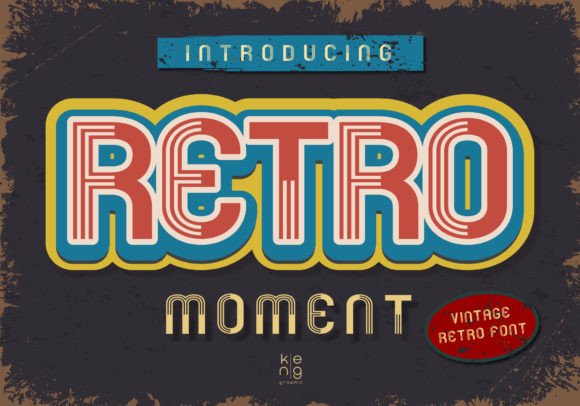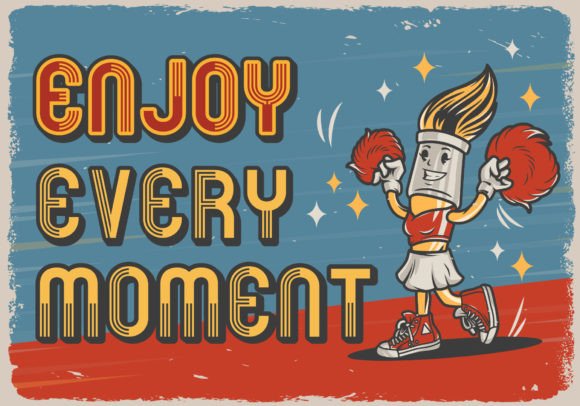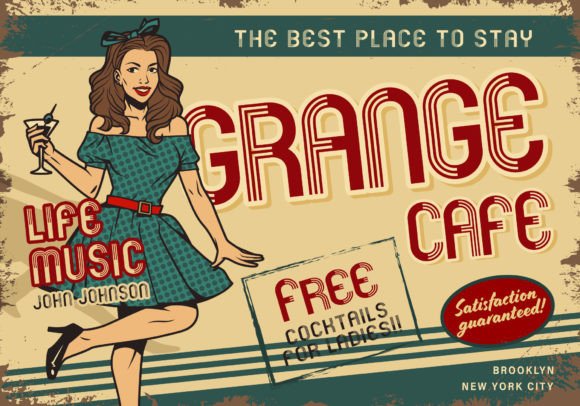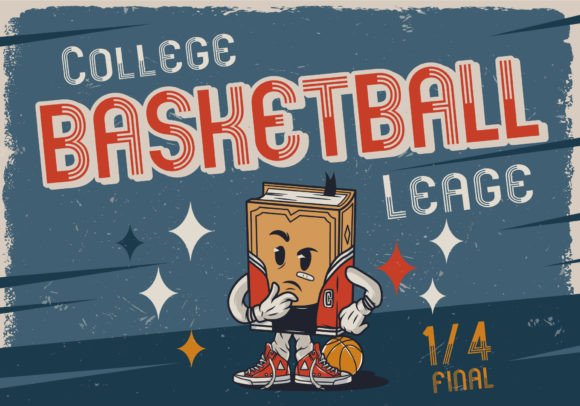
Retro Moment Font: A Bold Display Font for Vintage Typography
About the Retro Moment Font
Crafted with precision, the Retro Moment Font is ready to bring your ideas to life. Retro Moment is a clean vintage-style display font. Inspired by the retro typography of the 60s, anything written in this font is instantly recognizable and will grab attention. Use this display font to add a special retro touch to any design idea you can think of.
Retro Moment excels in headlines, posters, and short impactful branding statements where its bold, retro style makes a strong visual impact. It’s ideal for projects evoking nostalgia, mid-century modern aesthetics, or a vintage feel. Avoid using it for body text or long paragraphs; its strong character isn’t suited for extended readability.
Pair Retro Moment with a clean sans-serif like Open Sans for a balanced contrast, or a more geometric sans-serif such as Futura for a modern, streamlined feel. For a softer touch, consider pairing it with a delicate script font like Great Vibes, though use this sparingly to avoid overwhelming the headline’s impact.
The font’s overall personality is confident and playful yet undeniably retro. It works best for brands projecting a sense of fun, optimism, and a connection to a classic era.
Retro Moment Font Usage Examples
Retro Moment Font Example